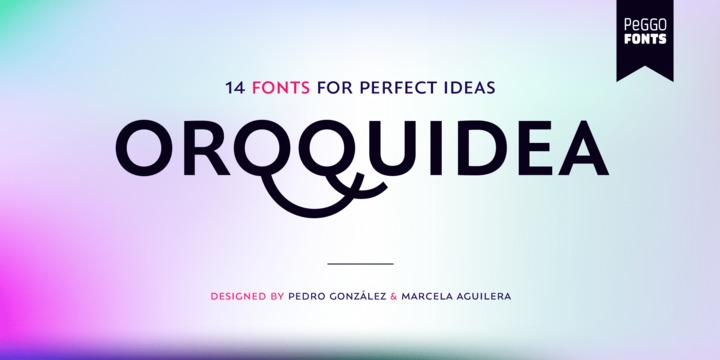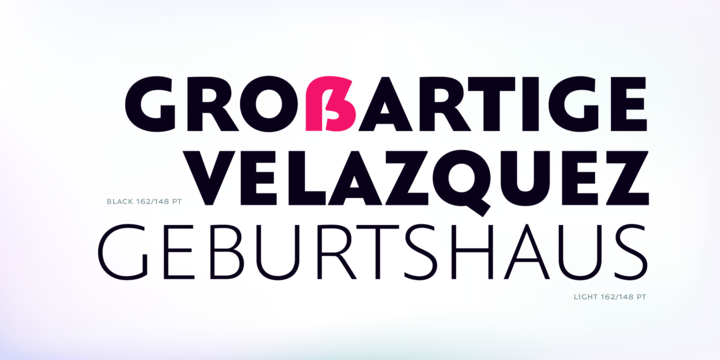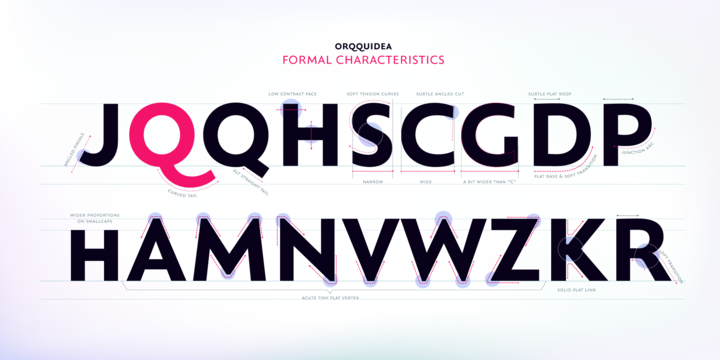
Low contrast and clean Roman Sans with capitals based on the classic Capitalis Monumentalis proportions with uniform and modern SmallCaps, with a subtle script touch on some curved strokes, that give it a less hard feel, more organic and friendly look.
The design idea born on 2013 from Roman Schemme studies, where new version of Legan and other roman typeface projects was based on too.
More Orqquidea was developed in 12 sizes with 659 glyphs each enhanced with professional opentype features (aalt, ccmp, locl, subs, sups, numr, dnom, frac, ordn, lnum, pnum, tnum, onum, c2sc, smcp, case, dlig, liga, zero, salt, calt, ss01, ss02, ss03, ss04), plus a complementary Orqquidea Framed version with 226 glyphs and a Orqquidea Garden version that include floral ornaments and related dingbats with 102 glyphs.
It can easily adapt to print and digital environments ideal for fashion branding and corporate purposes, magazine and book headlines and titles, cosmetic label design and even on contents with a modern and artistic air.